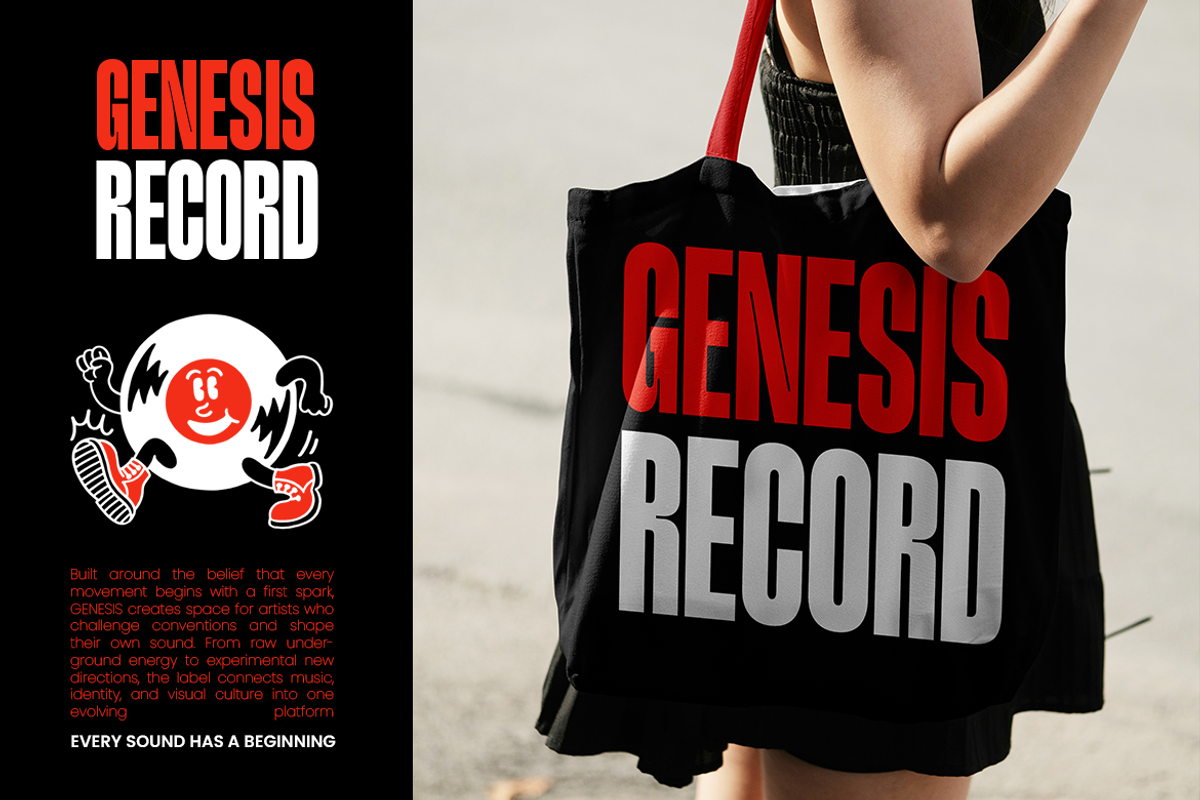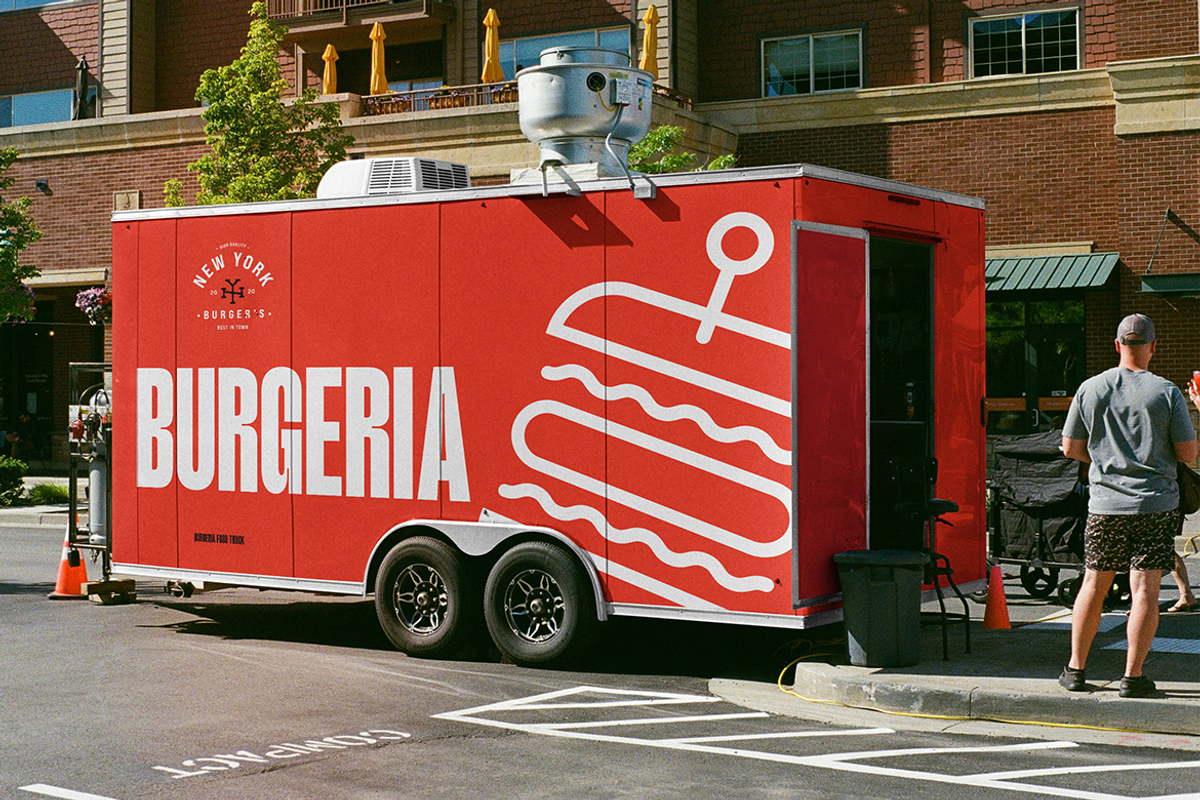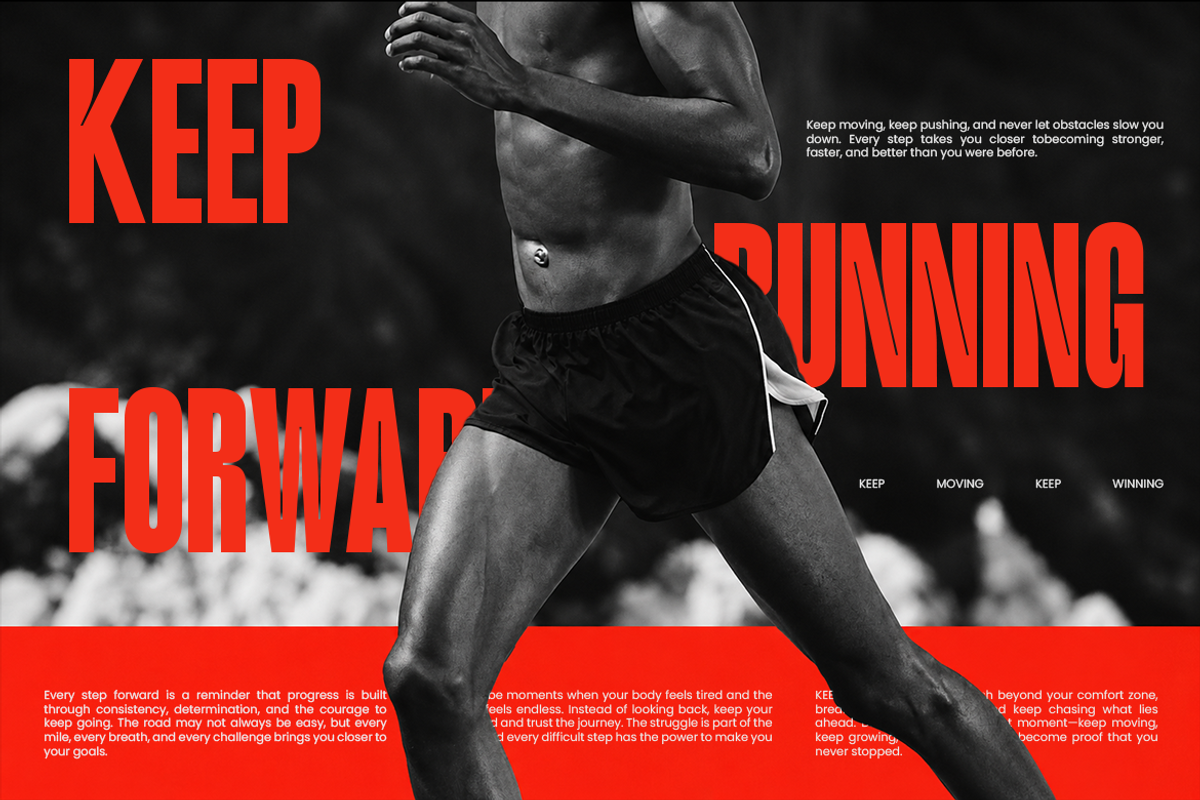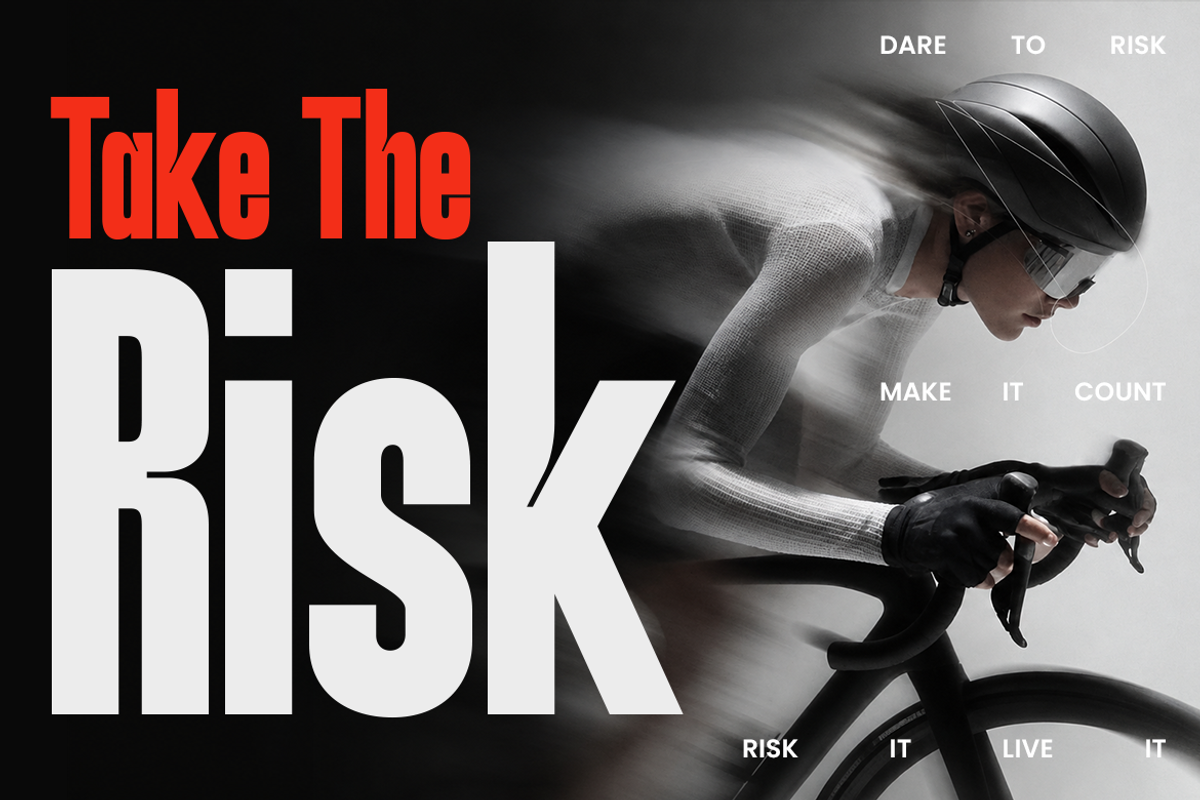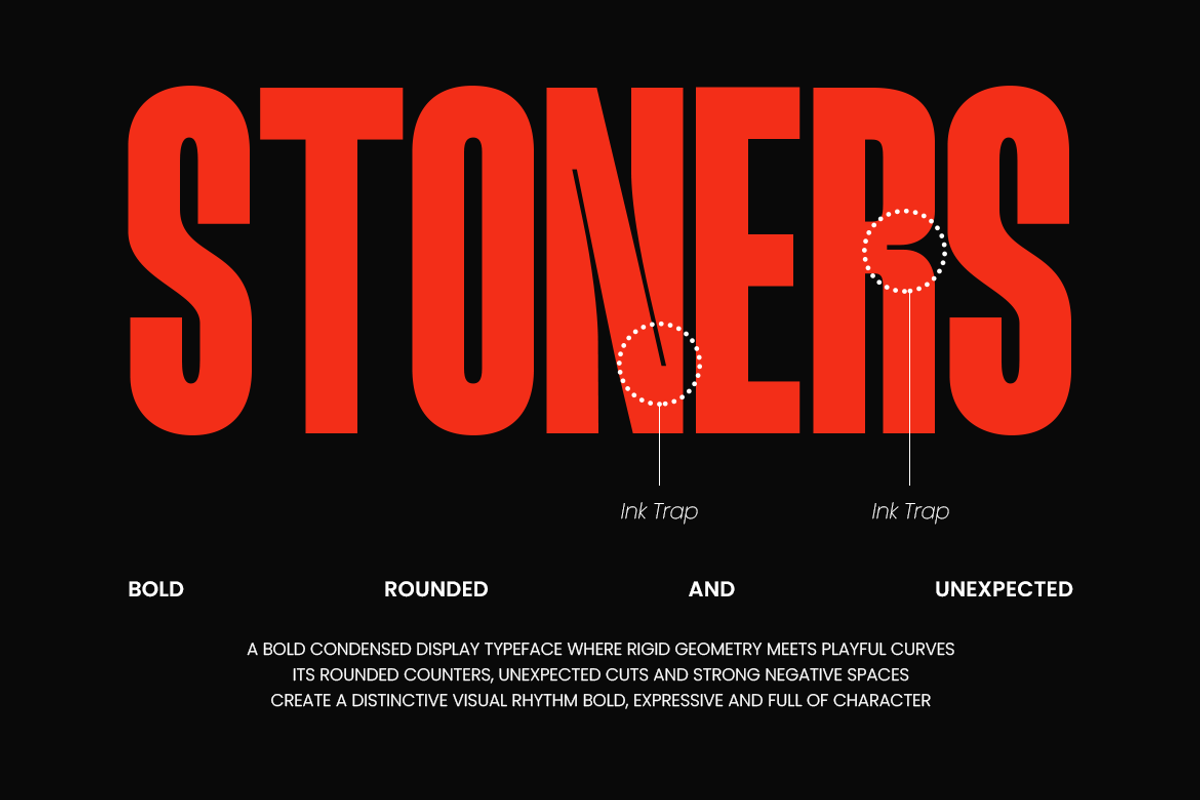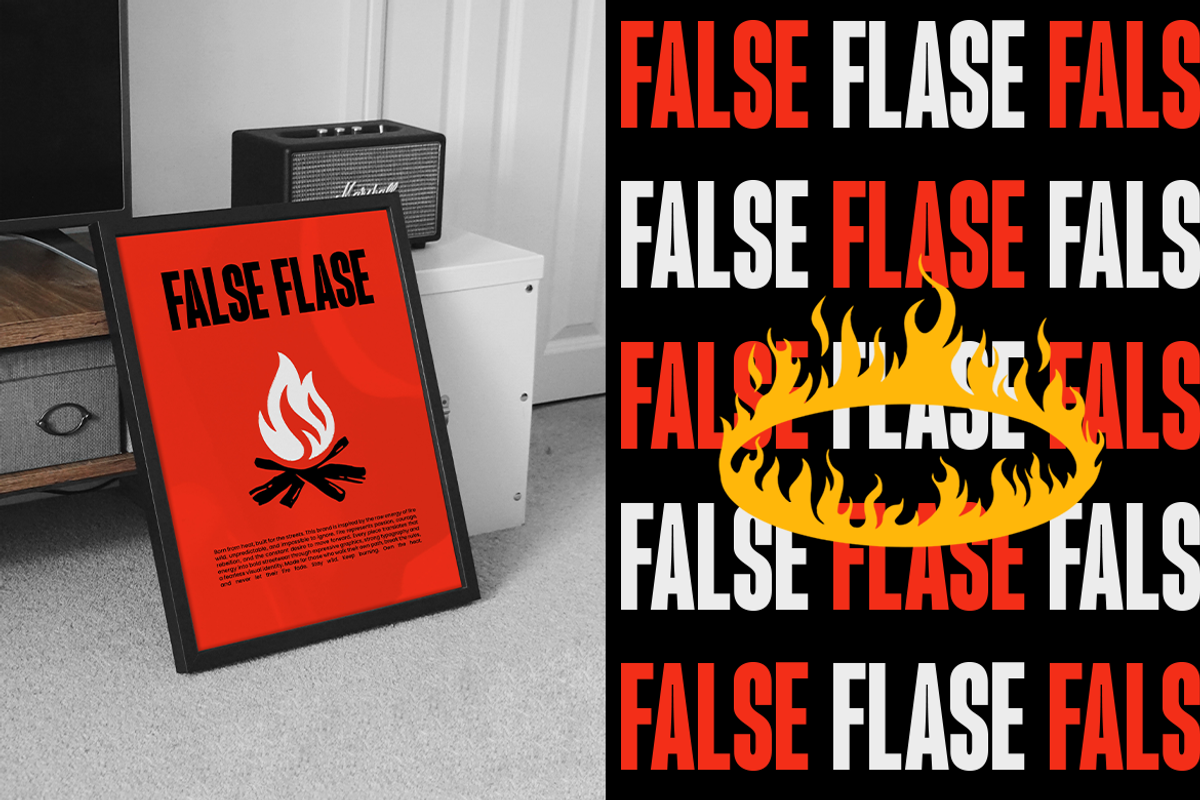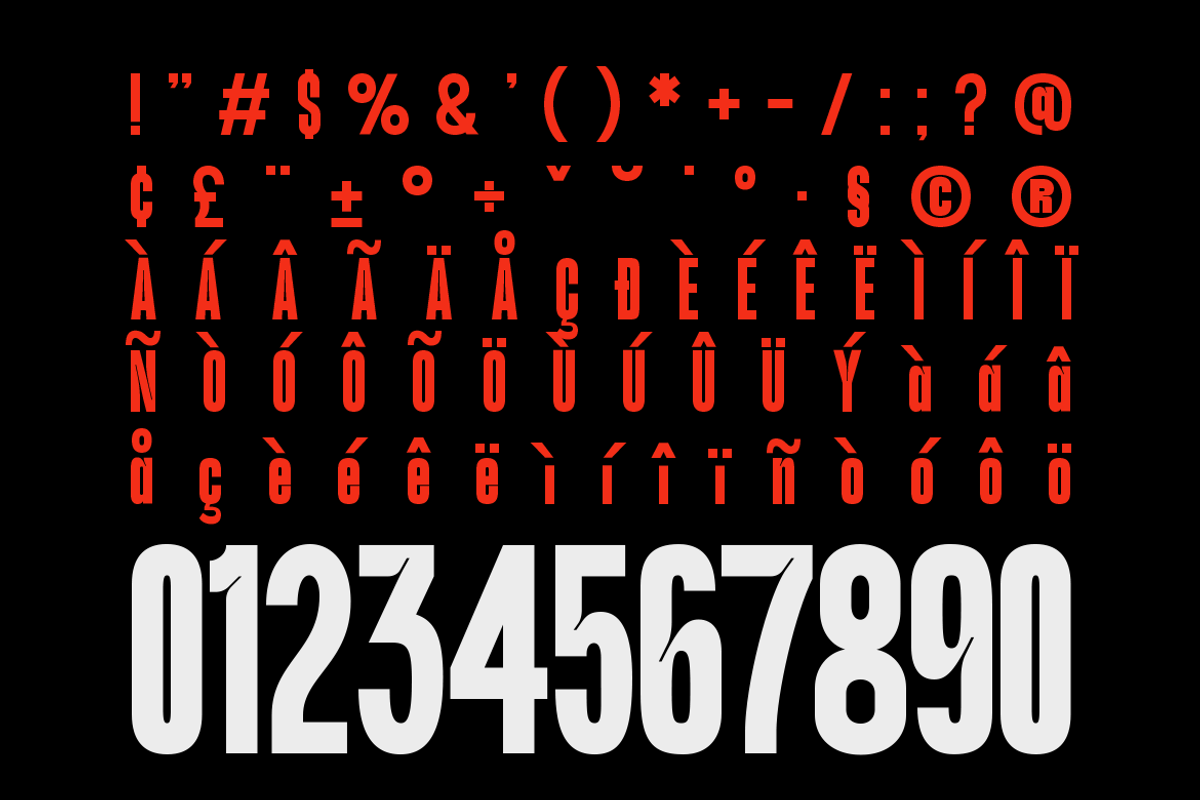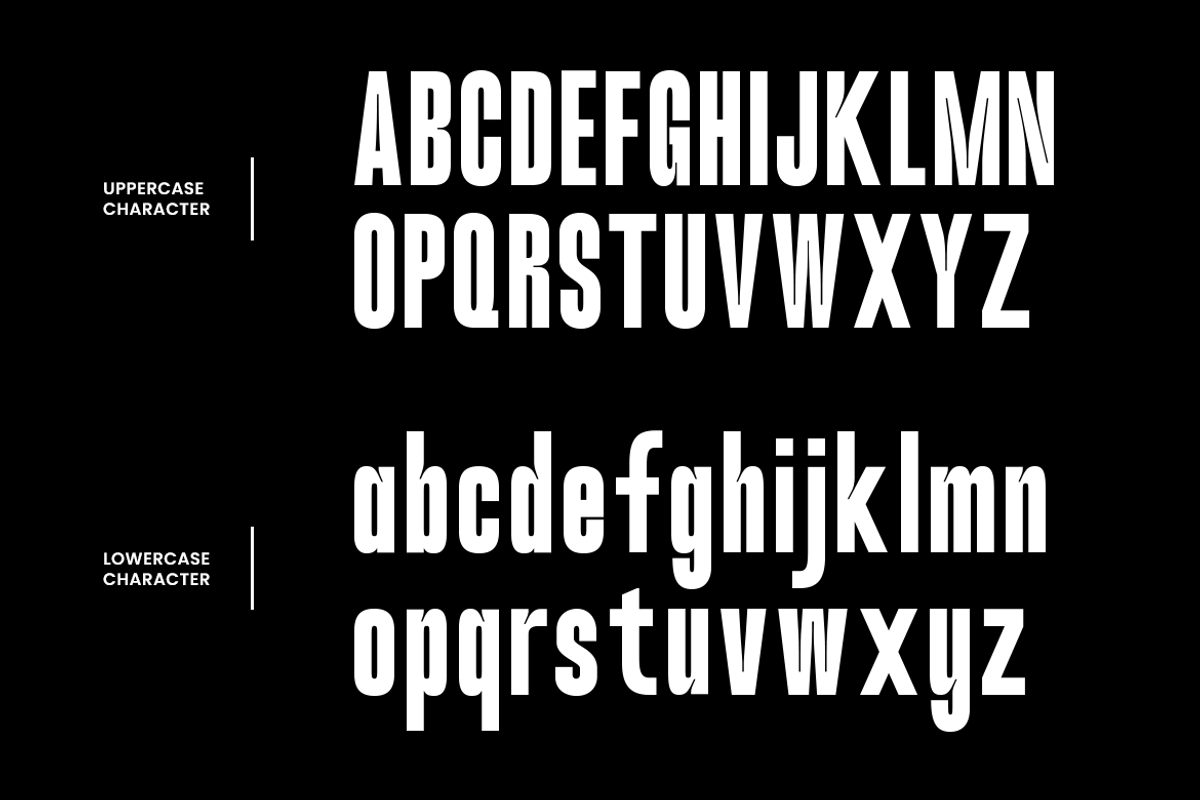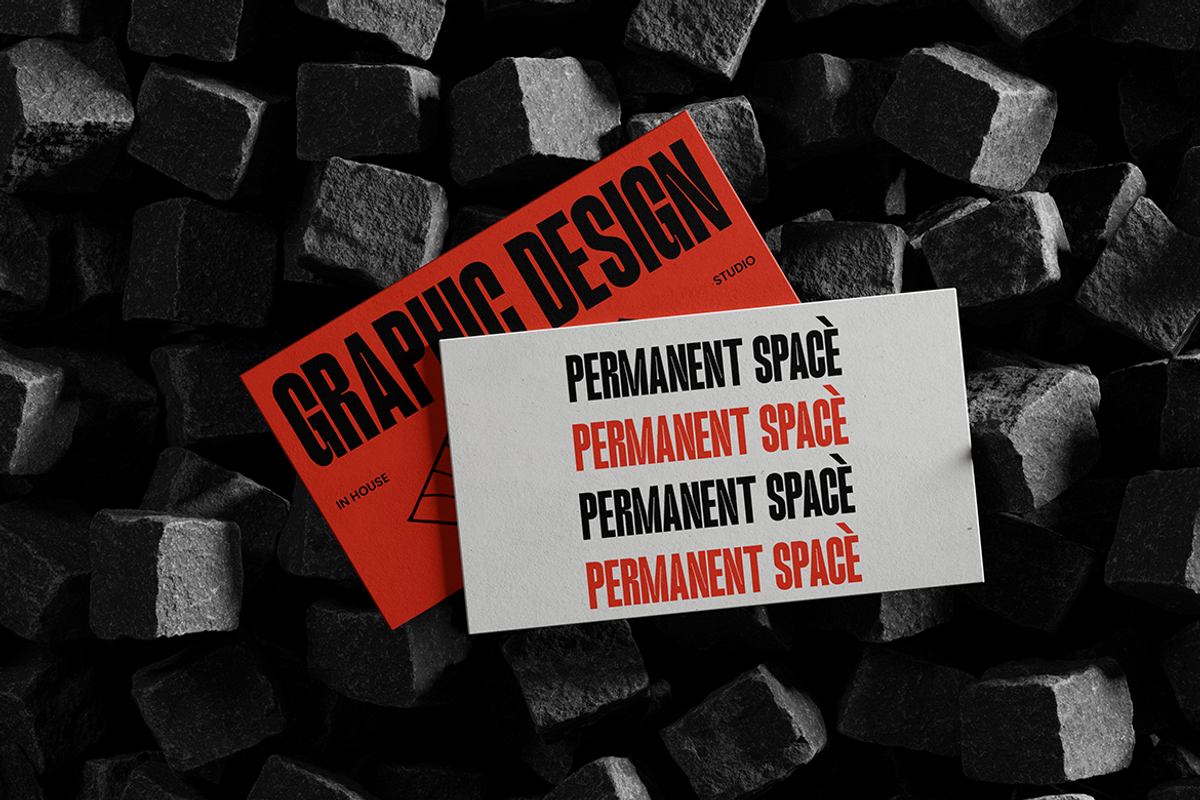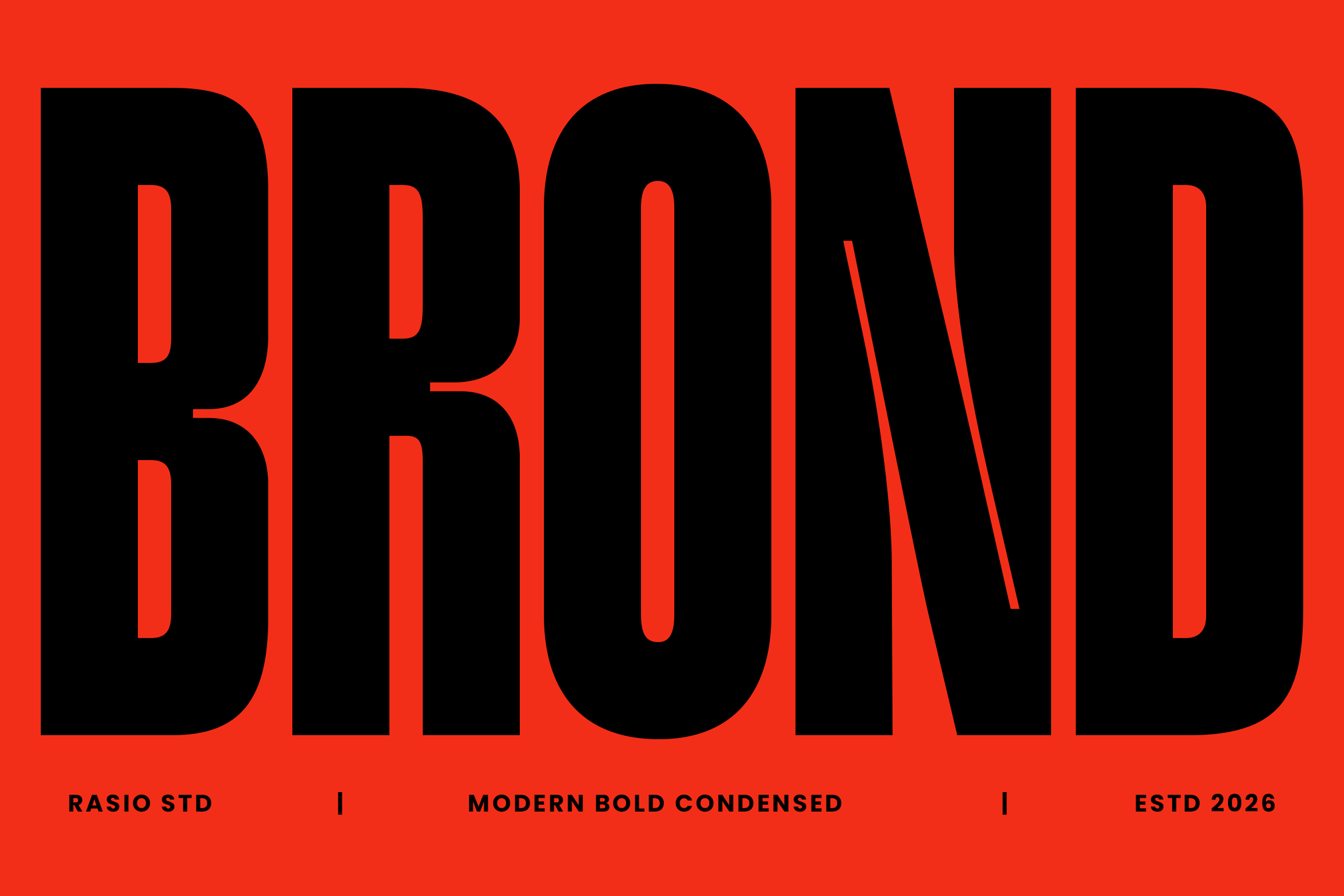
Brond Modern Bold Condensed Font
Brond is a bold condensed sans serif typeface built around extremely tall, narrow letterforms and a compact horizontal structure. Its characters use heavy, uniform strokes with tightly controlled proportions, creating a strong vertical silhouette that allows large words to occupy less horizontal space while maintaining a powerful visual presence. The uppercase alphabet is especially striking, with narrow counters, rounded outer corners, and compressed forms, while the lowercase set continues the same condensed construction with tall ascenders and compact bowls.
Brond works especially well in all-caps treatments, where its tall uppercase characters create a uniform block of typography. The lowercase characters can be used for supporting titles, subtitles, or mixed-case compositions when a slightly more varied typographic rhythm is needed. Its narrow proportions are also useful for stacked words, vertical layouts, magazine-style headlines, poster grids, packaging titles, and designs where several large typographic elements need to coexist within a limited area. Because of its heavy construction and condensed spacing, Brond is best used at display sizes rather than for long paragraphs or small continuous text.
Bold condensed sans serif with a strong, narrow vertical structure
Heavy letterforms create an intense and commanding visual presence
Tight proportions maximize impact while keeping text compact
Rounded outer corners soften the otherwise powerful geometric construction
Distinctive cut details add character to selected letterforms
Poster and headline design for bold, attention-grabbing typography
Sports and event branding for energetic titles, team graphics, and promotional visuals
Fashion and streetwear for logos, apparel prints, and campaign graphics
Music and entertainment for posters, album artwork, and promotional designs
Packaging and advertising where condensed lettering creates strong visual impact
Social media graphics for bold announcements, campaigns, and promotional content
Supports numerals, punctuation, and extensive symbol set